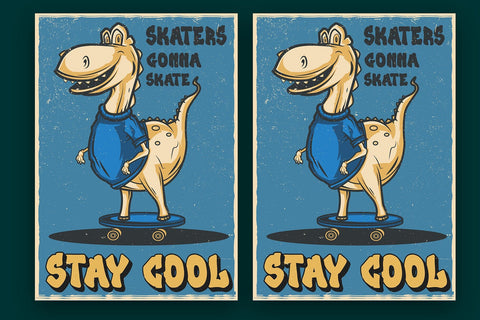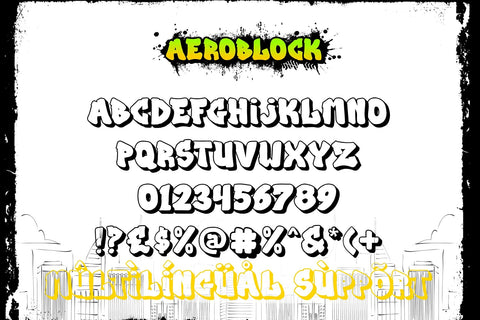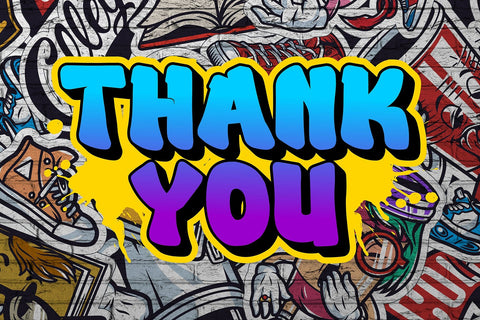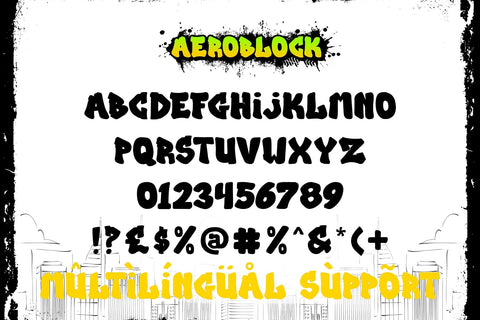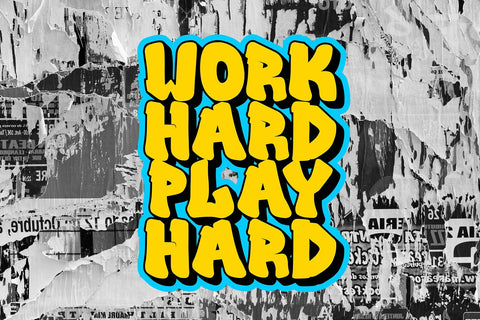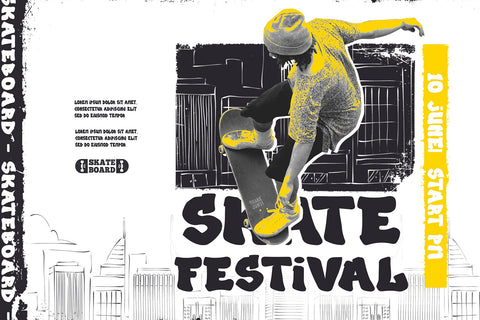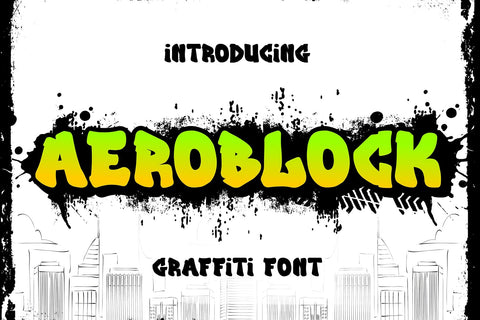
Aeroblock - Awesome Graffiti Font
Aeroblock is an urban graffiti font characterized by Rounded edges and a bold look. Ideal for music posters, apparel designs, shirts, and streetwear, this font brings a touch of edginess to your projects. The unique style of "Aeroblock" makes it the perfect choice for street style or urban graffiti themes. Whether you want to create a strong and powerful statement or simply add a touch of attitude to your designs, "Aeroblock" is the font for you.
- Graffiti Characters looks